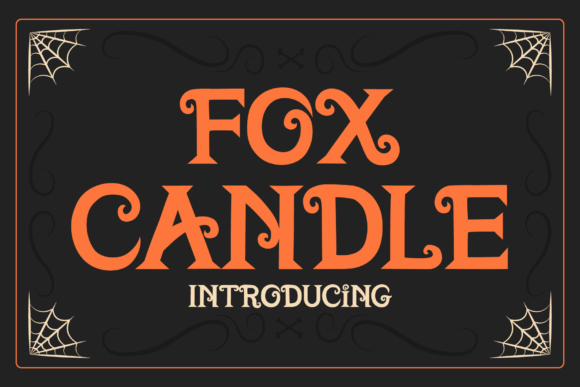
Introducing Fox Candle Font, the ultimate choice for your creative endeavors! Crafted with passion by Fox7, this vintage and cool slab serif font is here to elevate your designs to new heights. With its captivating charm and versatile nature, Fox Candle is the perfect companion for any occasion, be it Halloween, Christmas, or even Valentine's themes.
Imagine the impact this font can make on your logo, t-shirt designs, papers, print materials, website headers, photo frames, flyers, music covers, posters, image sliders, and so much more. Its unique and eye-catching aesthetic will effortlessly draw attention and leave a lasting impression on your audience.
Fox Candle Font is more than just a typographic choice – it's an emotion in itself. Its timeless appeal and nostalgic vibes transport your designs to a bygone era, evoking feelings of warmth, authenticity, and style. Your words will come alive with a touch of vintage elegance, breathing life into every letter and making them truly unforgettable.
But what sets Fox Candle apart from the rest? It's not just its stunning visual appeal, but also its functionality. This font is meticulously created to enhance readability, ensuring that your message is conveyed with utmost clarity. Each character is carefully crafted, allowing for smooth and seamless integration into your designs.
Looking to create a stunning Halloween invitation? Fox Candle Font has got you covered with its spooky yet sophisticated aura. Want to add a festive touch to your Christmas campaign? Let Fox Candle Font sprinkle its magic and infuse your designs with the holiday spirit. And when it comes to expressing love and affection on Valentine's Day, this font will be your ultimate cupid, striking hearts with its enchanting allure.
The world of design is yours for the taking, and Fox Candle Font is your secret weapon. So why wait? Take the leap and let this font transform your creations into extraordinary works of art. Get ready to captivate, inspire, and leave a lasting impression with Fox Candle Font – the best font for t-shirt design and beyond.